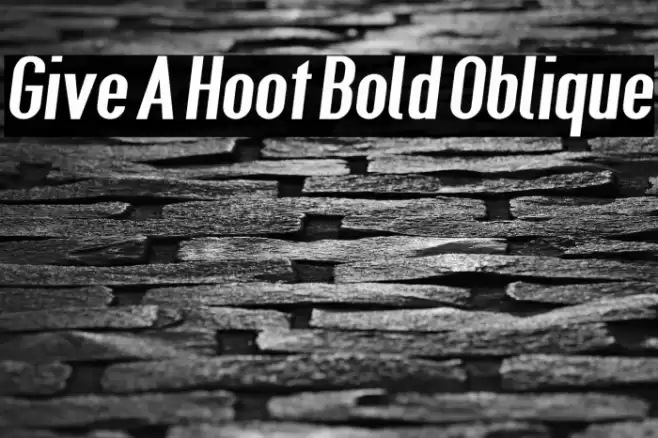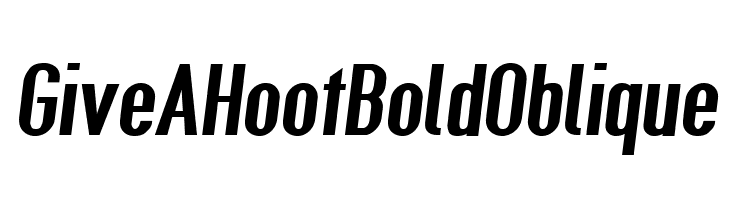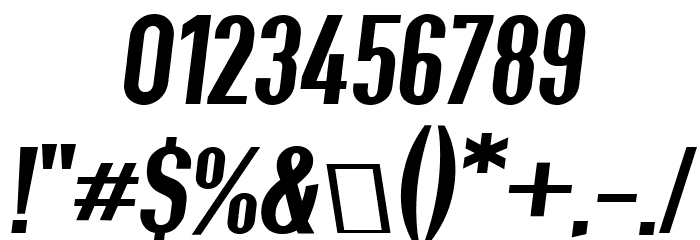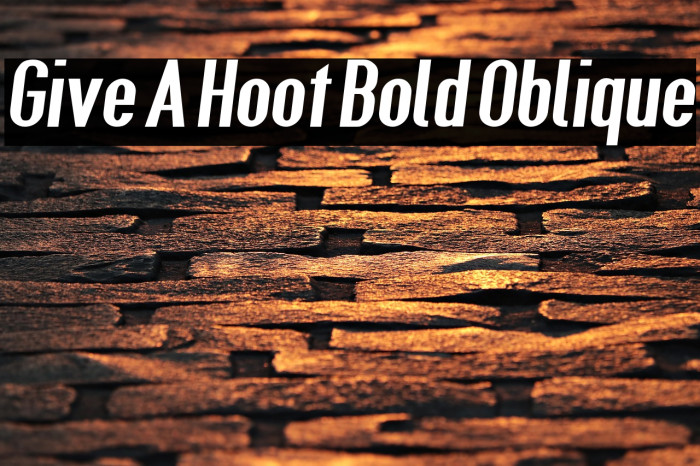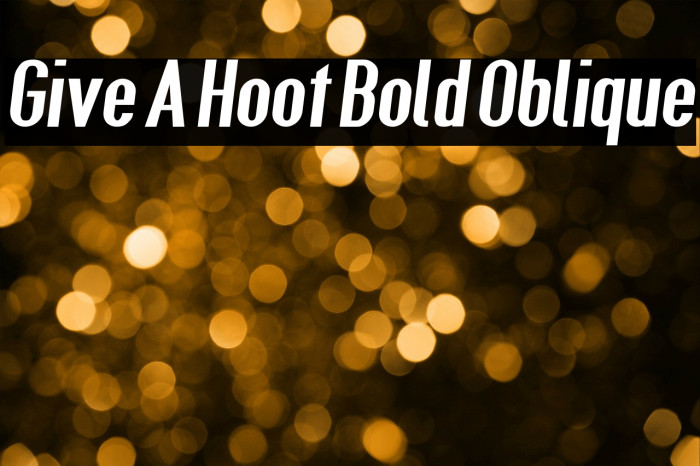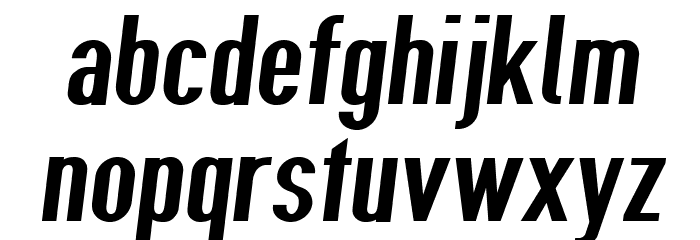
Give A Hoot Bold Oblique Font
Give A Hoot Bold Oblique Description
This font features a bold and oblique style, characterized by its strong, slanted letterforms that convey a sense of dynamism and urgency. The uppercase and lowercase letters are well-defined, with a consistent stroke weight that enhances readability. The numerals and special characters maintain the same boldness and slant, ensuring uniformity across all text. The font's design is modern and sleek, making it suitable for a variety of applications where impact and clarity are essential.
A bold, oblique font with modern, dynamic letterforms from Uncategorized fonts.